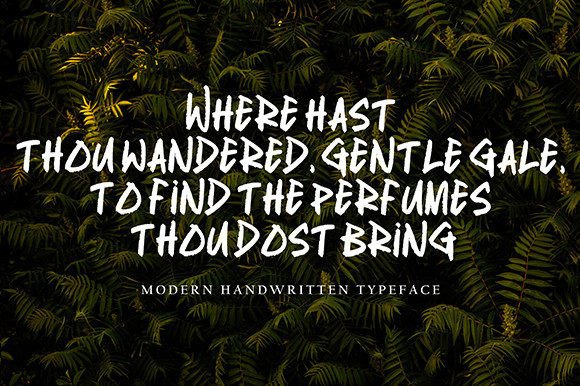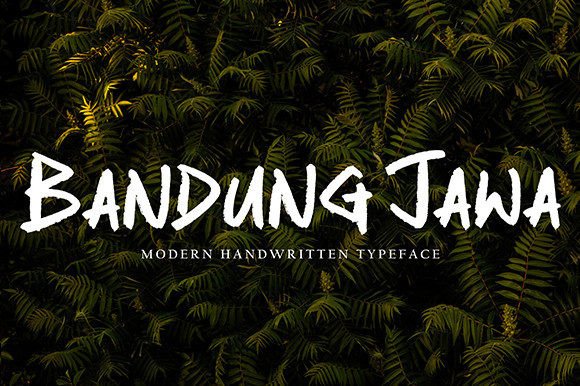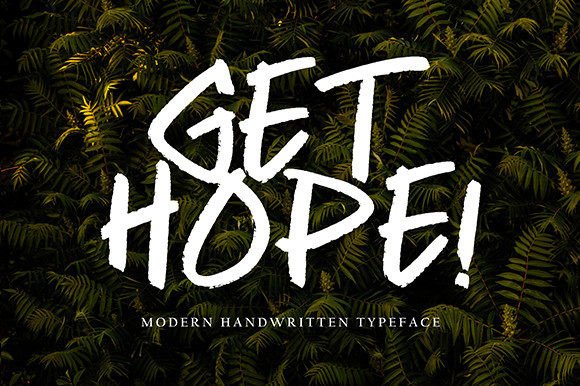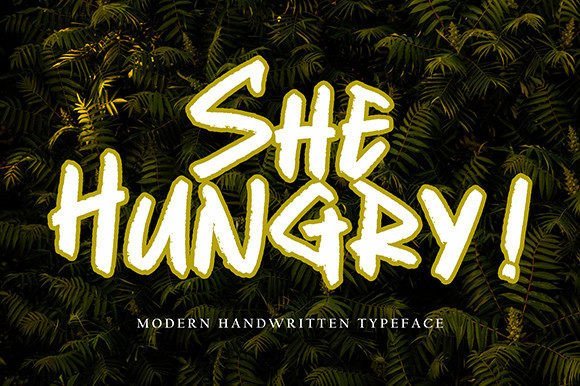
Introduction to She Hungry Font
She Hungry is a stylish and elegant handwritten font.
It looks stunning on wedding invitations, thank you cards, quotes, greeting cards, logos, business cards, and any other design that needs a handwritten touch .
Key Features of She Hungry Font
Why Choose She Hungry Font?
She Hungry Font offers exceptional quality and versatility, making it a valuable addition to your design toolkit. Whether you’re creating for personal projects or commercial use, She Hungry Font delivers professional results.